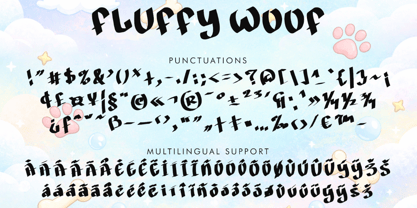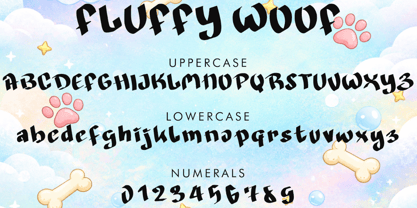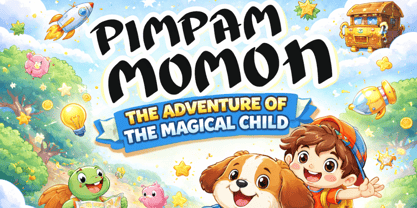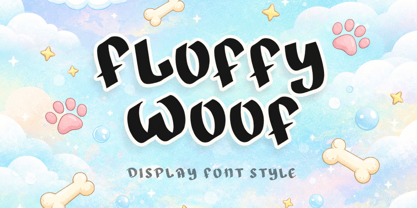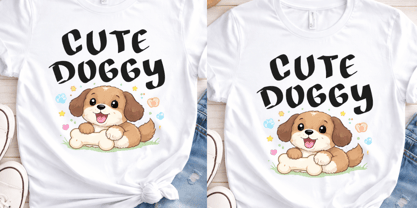
Fluffy Woof
by Yoga Letter
The Fluffy Woof Font Family was designed by Isroni Yoga Prasetya and published by Yoga Letter. Fluffy Woof contains 1 styles. More about this family
"Floffy Woof" is a fun display font. It features uppercase and lowercase letters, numbers, punctuation, and multilingual support. It's perfect for action movie titles, doggyfont, animal font, cartoon font, Halloween, Christmas, Easter, spring and summer, banners, branding, stickers, logos, patriotic text, back to school text, business branding, screen printing, tshirt designs, and more.